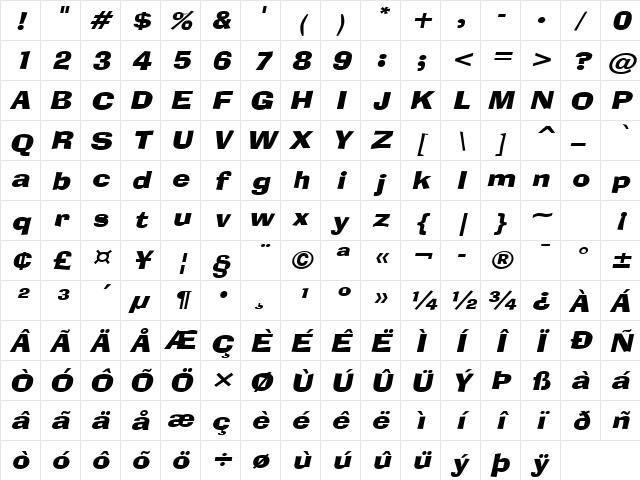
Alor-Wide is a composed and adaptable typeface that performs quietly and consistently across a wide range of design contexts. The slanted form adds forward momentum and visual energy.
Pro Tip: Use Alor-Wide for emphasis, pull quotes, and subheadings where its slanted energy can add rhythm to the layout.